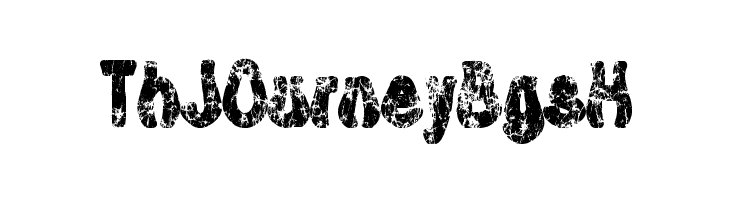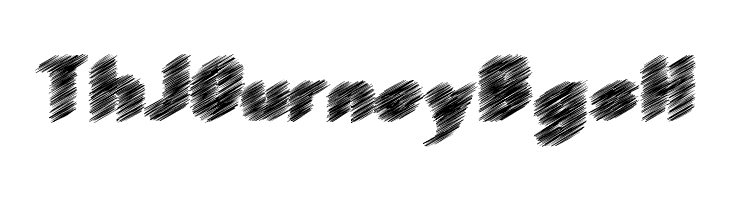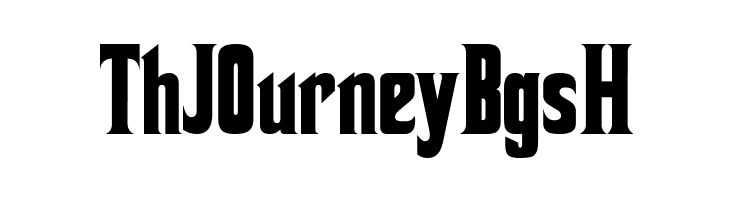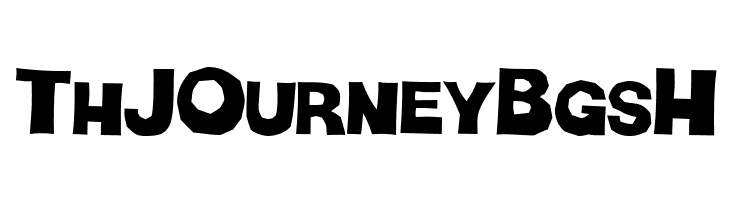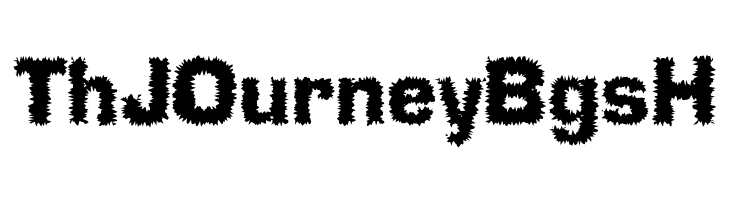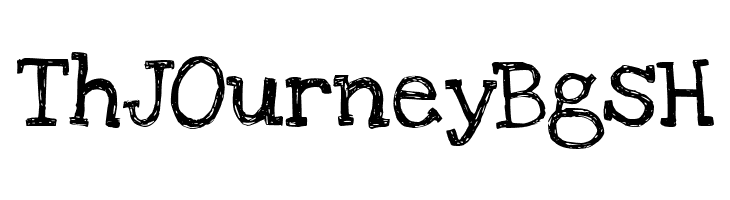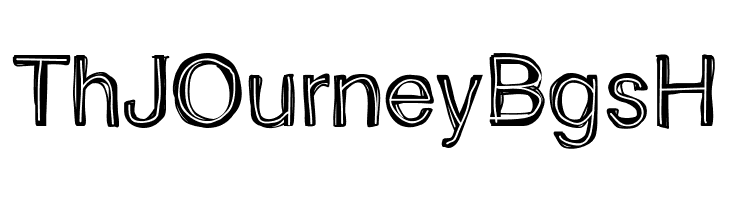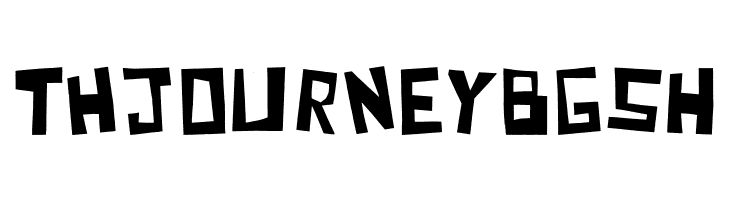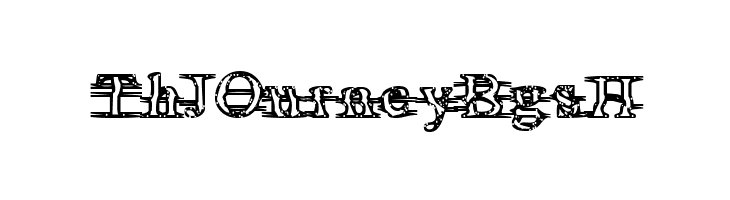
A bold, scribbled font with a textured, hand-drawn appearance.
A bold, vintage-style font with strong, thick strokes and a slightly condensed appearance.
A playful, hand-drawn font with a sketch-like, textured appearance.
A bold, playful font with a cut-out, handcrafted appearance.
A distressed, hand-drawn font with a rugged, textured appearance.